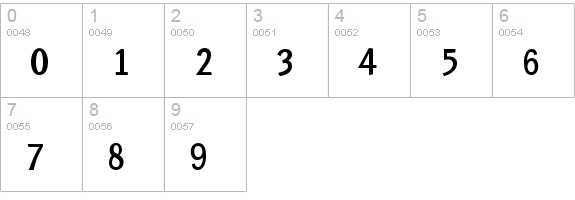
MexSans-Bold Font Details
MexSans-Bold is a strong, high-contrast variant in the MexSans typeface family \xE2\x80\x94 well suited to headlines, attention-grabbing titles, and strong calls-to-action.
MexSans-Bold is a modern and stylish typeface that exudes confidence and sophistication. With its bold and eye-catching design, this font is perfect for making a statement in headers, titles, and logos. The clean lines and sharp edges of MexSans-Bold give it a contemporary and professional look that is sure to draw attention. What sets MexSans-Bold apart is that it is available for free download at FontsMarket.com. This means that you can easily access this striking font and use it in your projects without any cost. Whether you are designing a website, creating marketing materials, or crafting a presentation, MexSans-Bold is a versatile choice that will elevate your work to the next level. Don't miss out on the opportunity to enhance your designs with MexSans-Bold. Download this font for free today and add a touch of modern elegance to your projects.